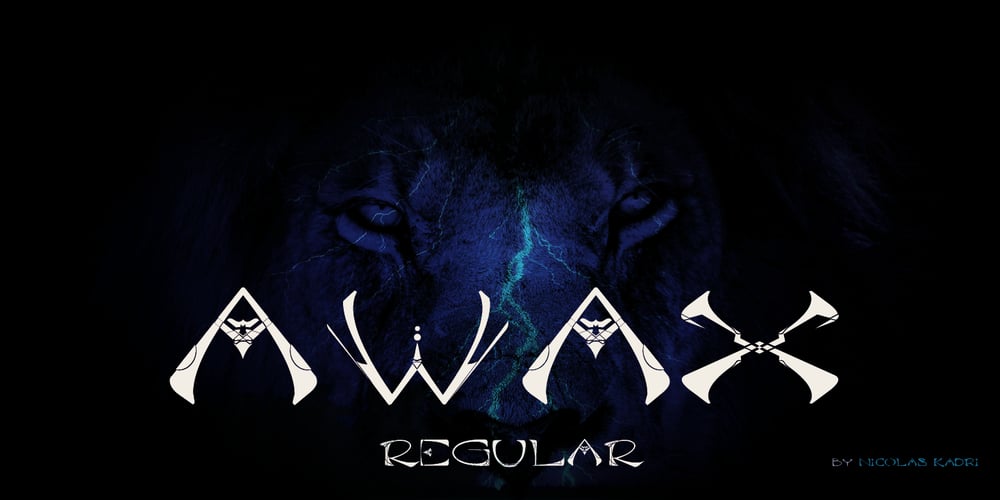
Awax Font Family was designed by Nicolas Kadri and published by Arkilion. Awax contains 1 styles and family package options. This font is the result of many years of research between full and empty. The combination of capital letters is very powerful while remaining in the traditional art of an ancestral Zen style.AWAX is perfect for your titles and logos and can also be used in paragraphs.You have to go very very closely to admire the detail work done while scrupulously respecting legibility and balance.